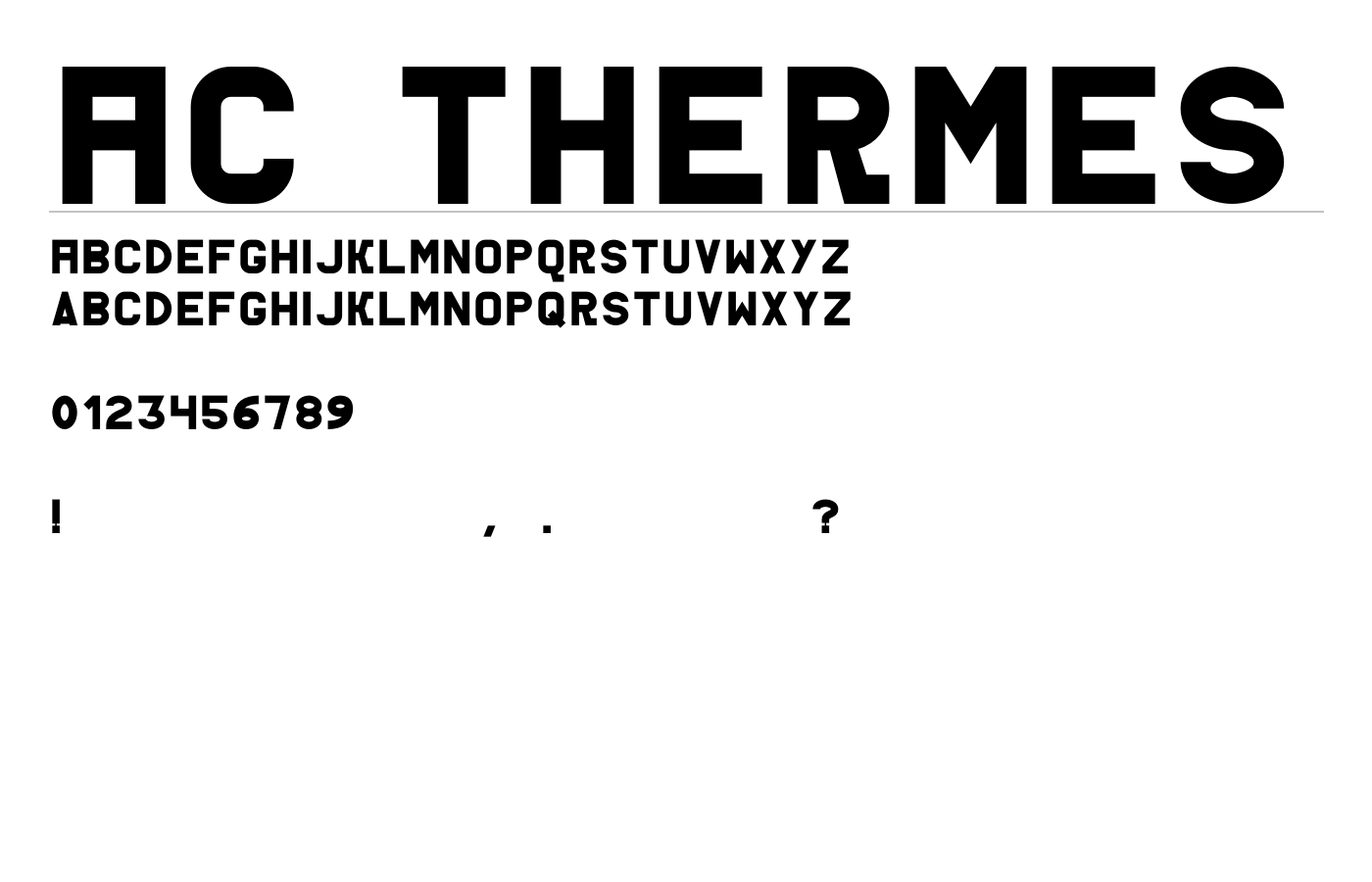
AC Thermes is a bold, condensed sans serif font with a strong geometric feel and uniform stroke weight, giving it a modern and industrial character. Its clean lines and tight spacing make it highly legible and impactful, ideal for striking headlines, logos, and branding that require a confident and contemporary look. This font works best in design contexts where clarity and boldness are key, such as posters, editorial titles, and packaging for products with a sleek, urban edge.
AC Thermes Font
About AC Thermes Font